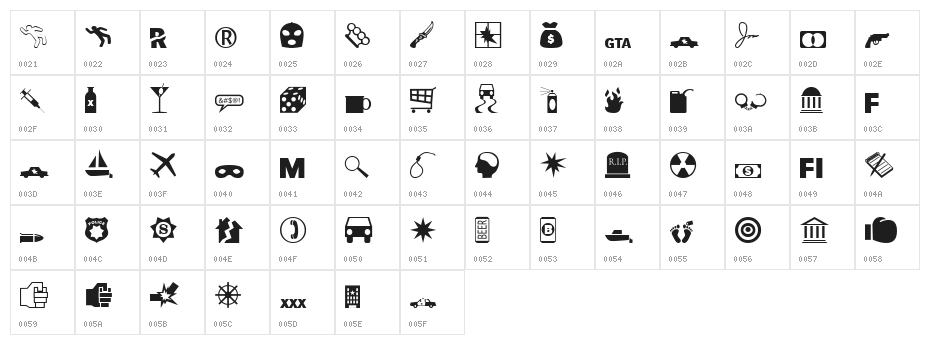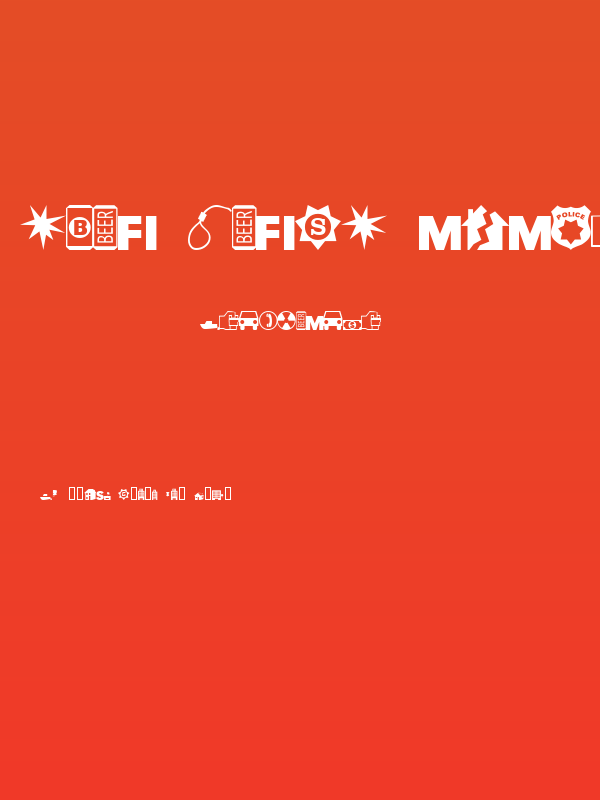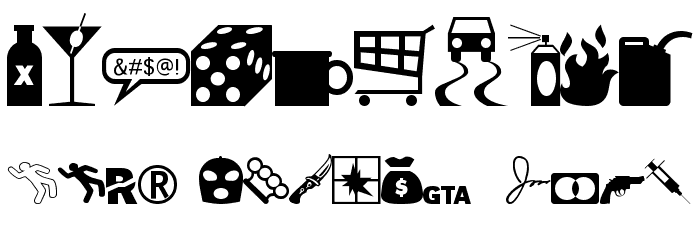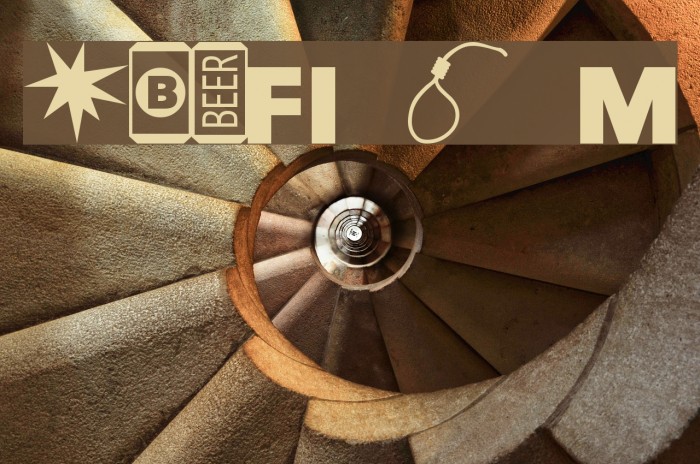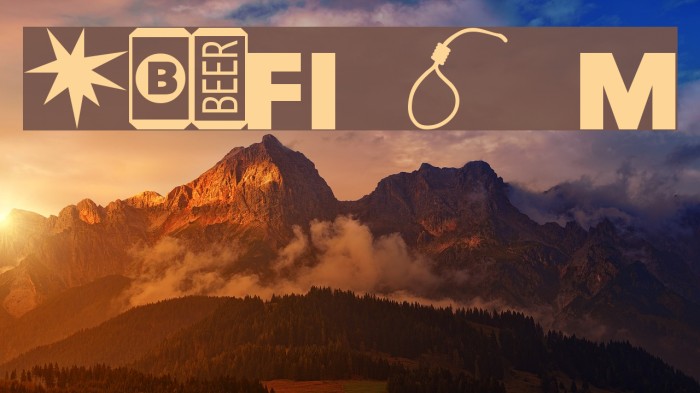
ESRI Crime Analysis Font
ESRI Crime Analysis Description
This is not a traditional font but rather a collection of crime-themed icons and symbols. Each character is represented by a distinct graphic, such as handcuffs, police badges, and other crime-related imagery. The style is bold and illustrative, with a focus on clear, recognizable shapes. The icons are monochromatic, providing a stark and impactful visual representation. This set is designed for thematic use, particularly in contexts related to crime, law enforcement, or detective work.
| Use Case | Logos, Thematic designs, Infographics |
| Proposed Projects | Ideal for crime-related infographics, educational materials on law enforcement, or thematic design projects requiring illustrative symbols. |